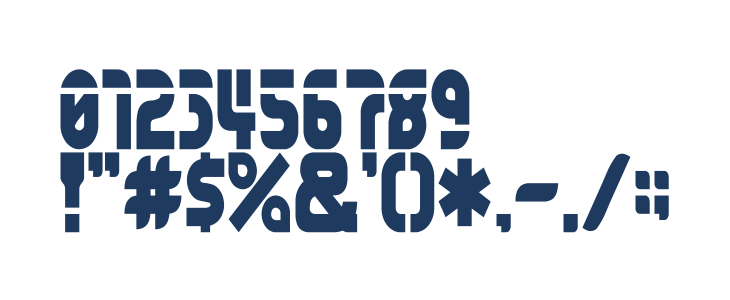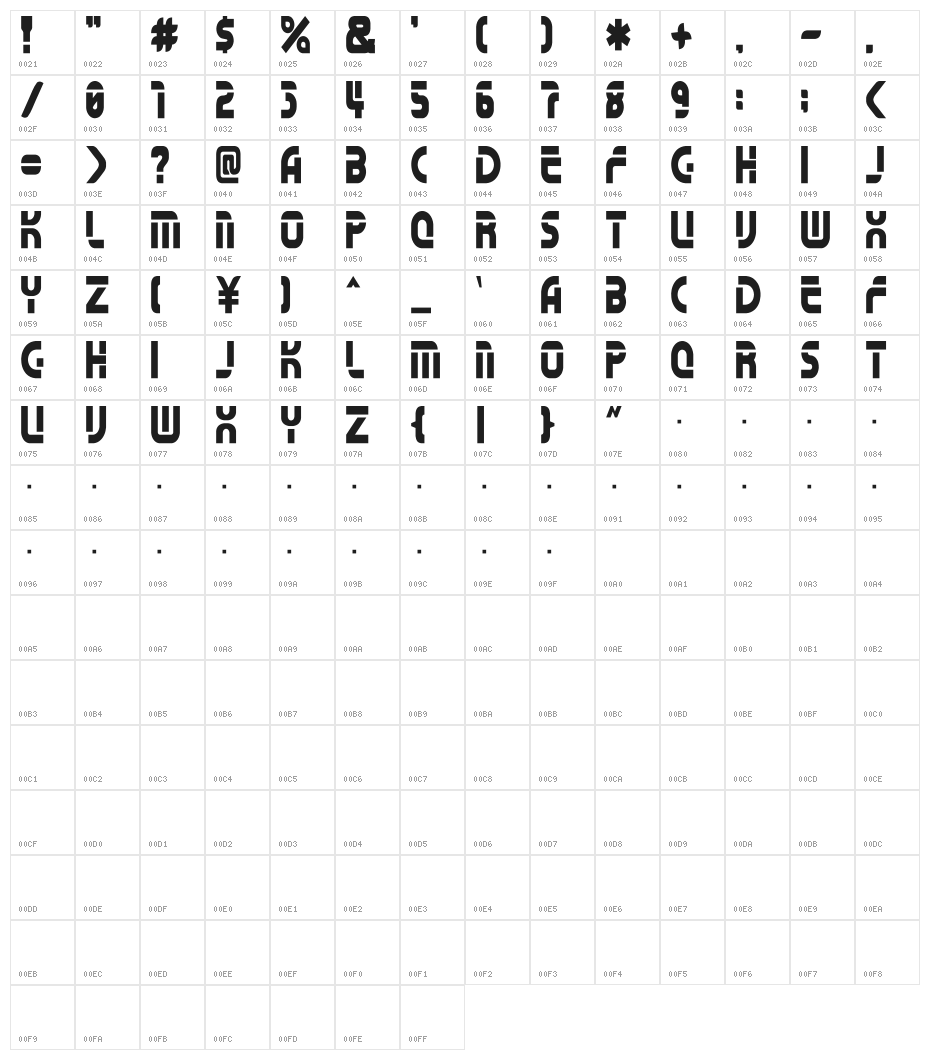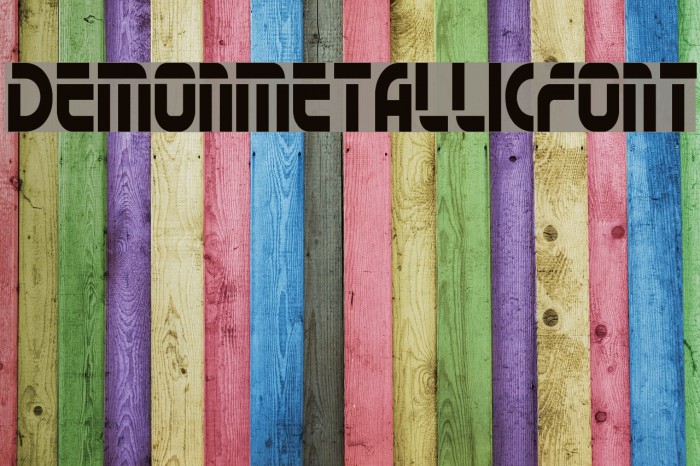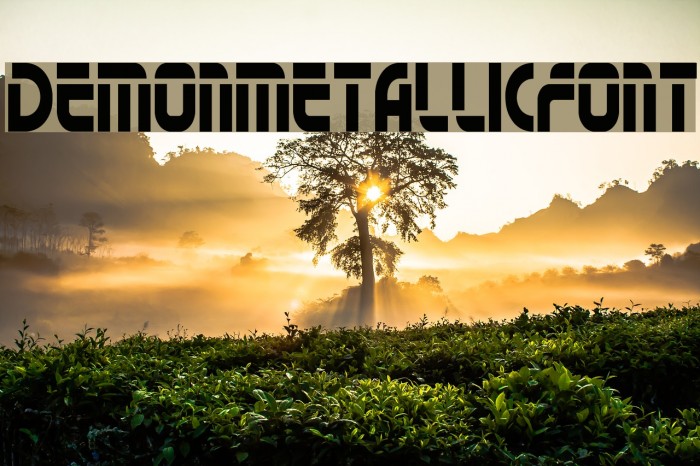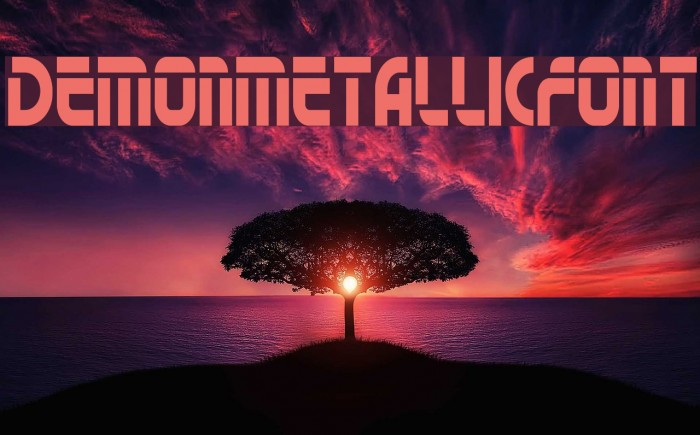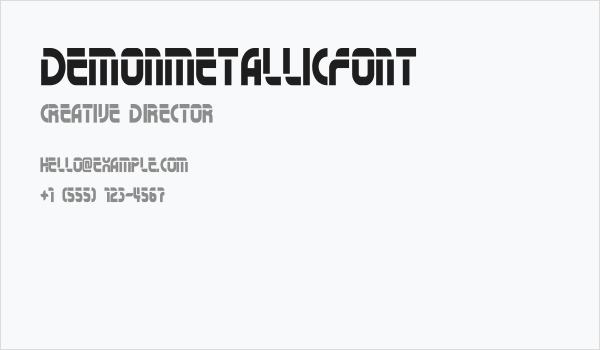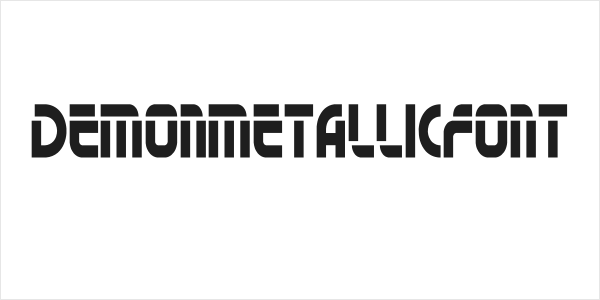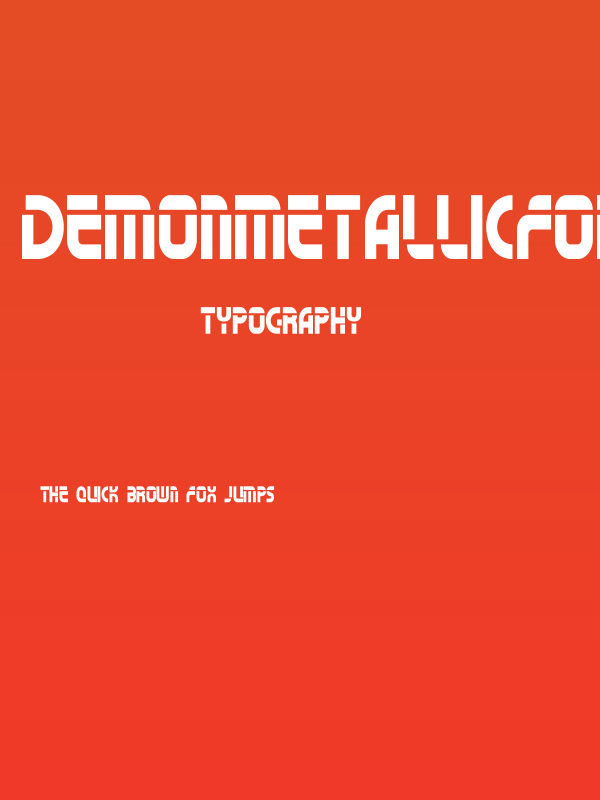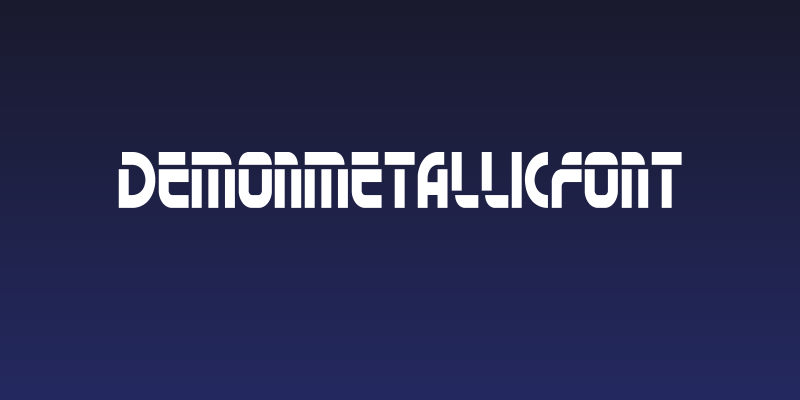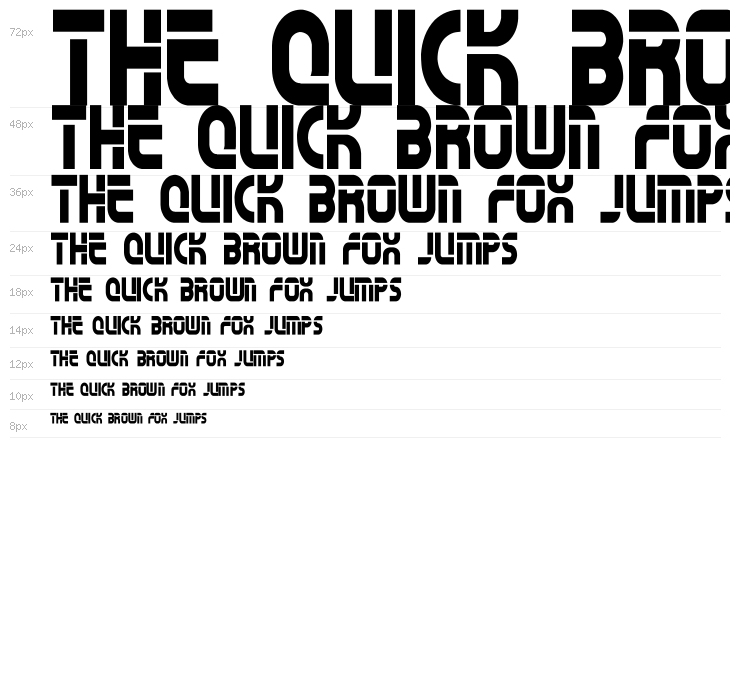
DemonMetallicFont Font
DemonMetallicFont Description
This font features a bold, futuristic design with a metallic aesthetic. The characters are constructed with geometric precision, incorporating sharp angles and clean lines. The uppercase and lowercase letters maintain a consistent style, emphasizing a strong, industrial feel. The numbers and special characters are equally bold, with a unique, edgy appearance that complements the overall design. This font is ideal for projects that require a modern, tech-inspired look, such as gaming titles, sci-fi movie posters, or branding for technology companies.
| Proposed Projects | Ideal for gaming titles, sci-fi movie posters, tech branding, and futuristic designs. |